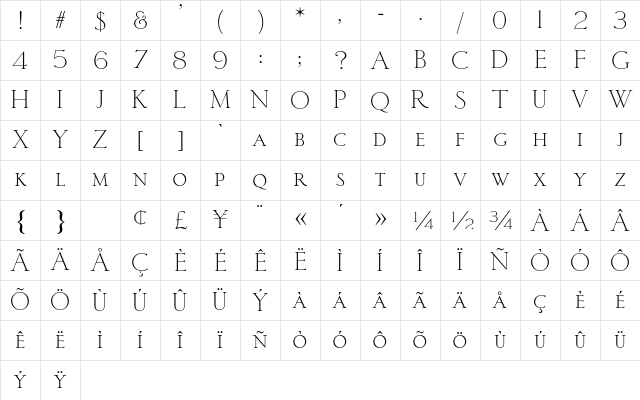
Sackers Classic Roman Light AT wears its vintage influences proudly, with letterforms that recall mid-century signage, classic packaging, and nostalgia-driven design. Its slender proportions lend an understated elegance to any composition.
Font Pairing: Combine Sackers Classic Roman Light AT with a simple slab or neutral sans - period-accurate companions reinforce the vintage feel without competing for attention.
Pro Tip: Lean into Sackers Classic Roman Light AT's period character by pairing it with aged paper textures, muted colour palettes, and vintage illustration styles.